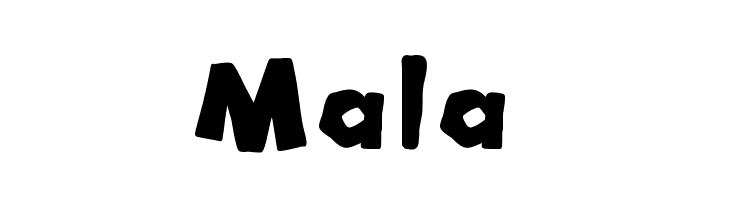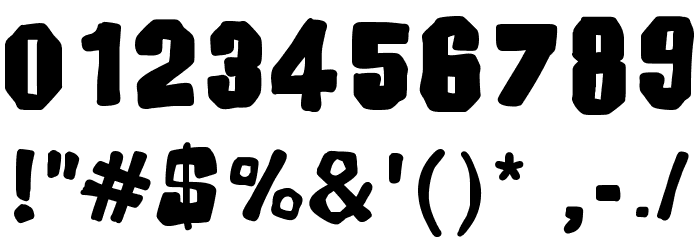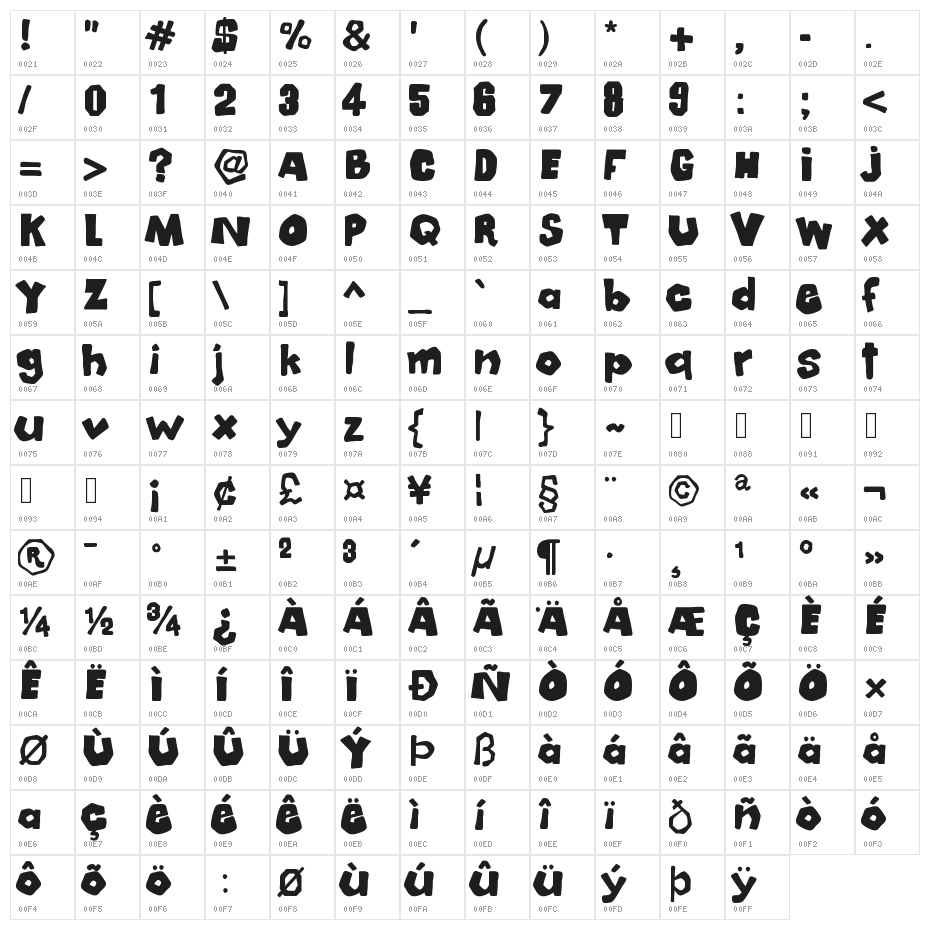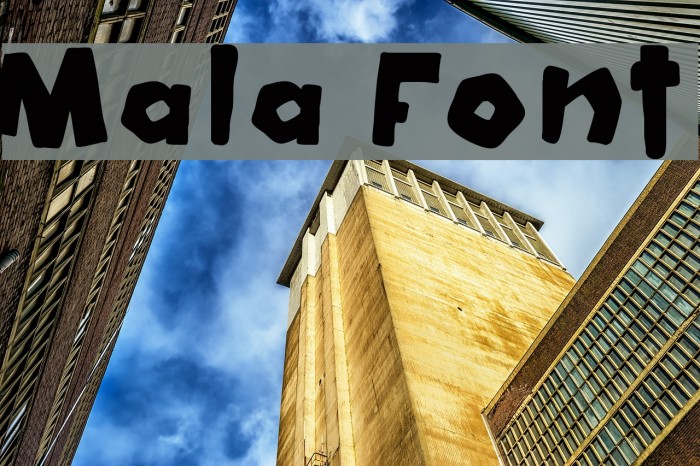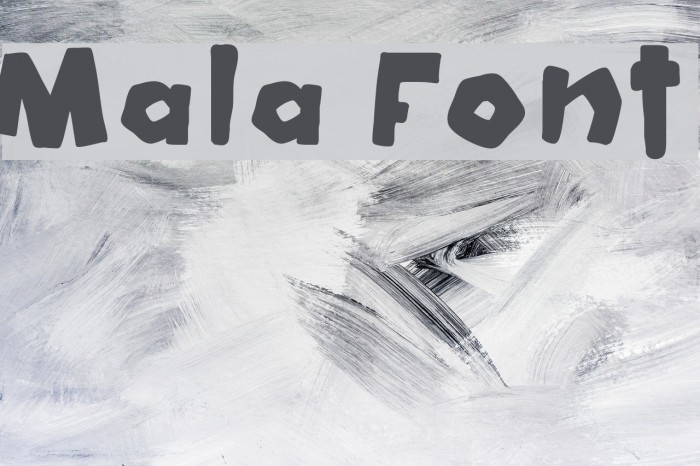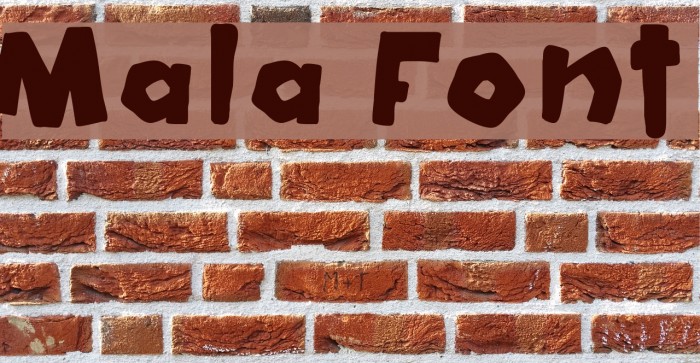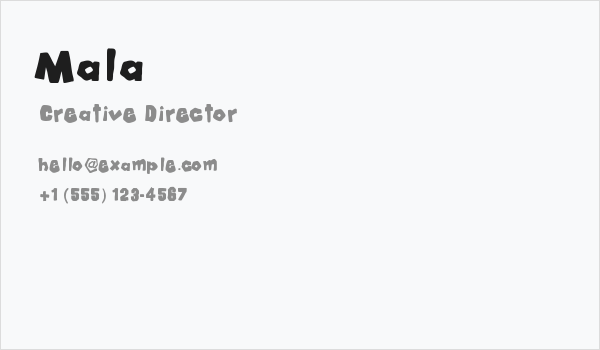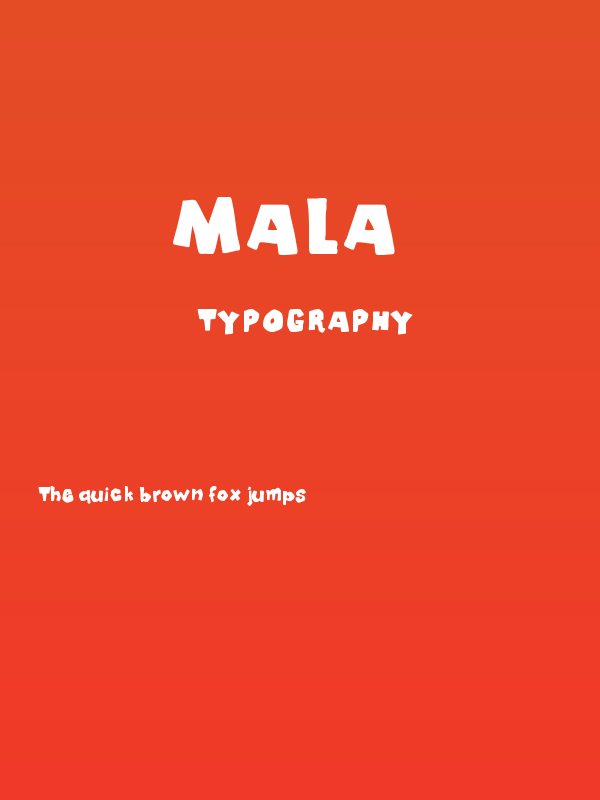
Mala Font
Mala Description
This font features a bold and playful style with irregular, hand-drawn characteristics. The letters have a chunky, uneven appearance, giving them a whimsical and informal feel. The uppercase and lowercase letters maintain a consistent thickness, while the numbers and special characters follow the same playful design. The overall look is reminiscent of a child's handwriting or a comic book style, making it ideal for projects that require a fun and approachable aesthetic. The font's unique style is suitable for creative and casual applications, adding a touch of personality to any design.
| Proposed Projects | Ideal for children's books, comic strips, playful branding, and casual invitations. |